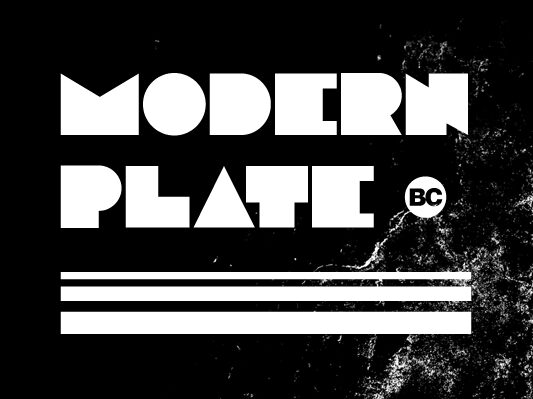
Modern Plate by BC of BC - Dker is a free geometric sans serif with an exceptionally heavy, tightly packed silhouette. Circular forms, triangular cuts, and abrupt rectangular openings make familiar letters look like abstract signage.
Posters are its clearest medium, since the oversized shapes can function as both lettering and graphic pattern. The same hard-edged geometry suits music packaging and fashion merchandise with an experimental edge. Across event graphics, record sleeves, and apparel, these circles, wedges, and slabs turn words into compact pieces of imagery.